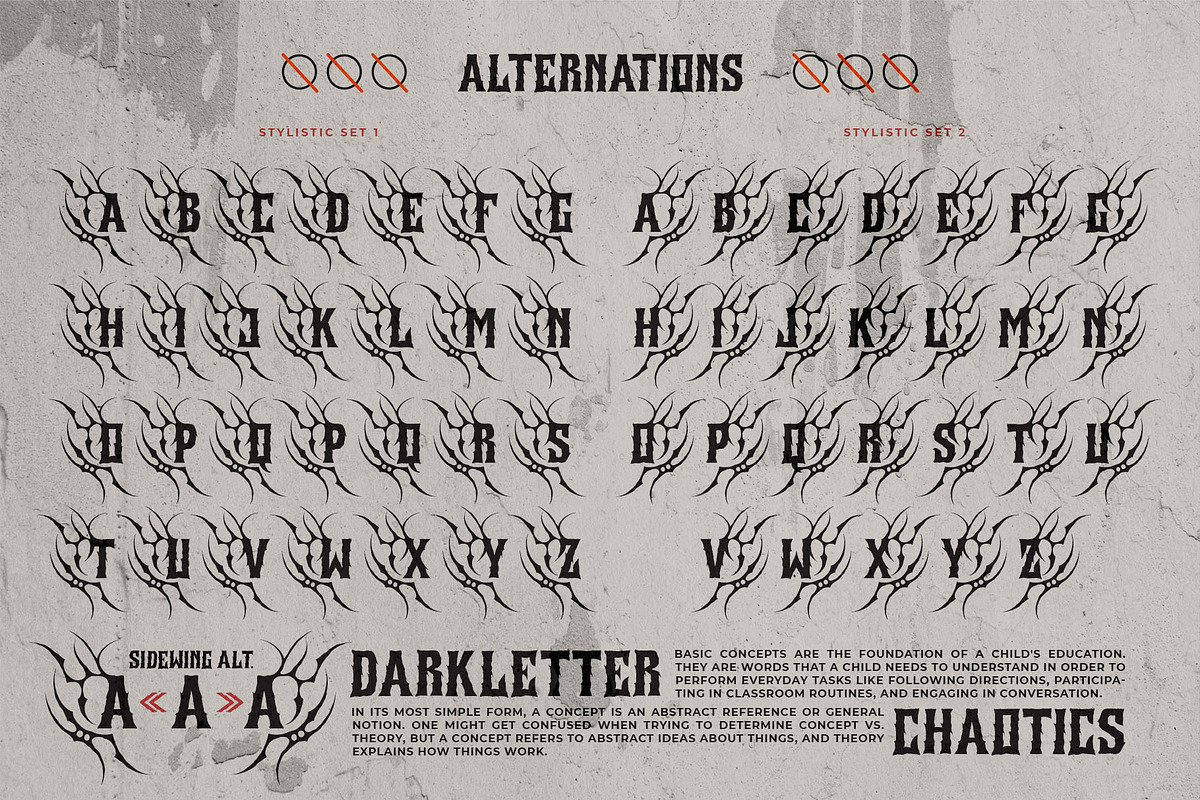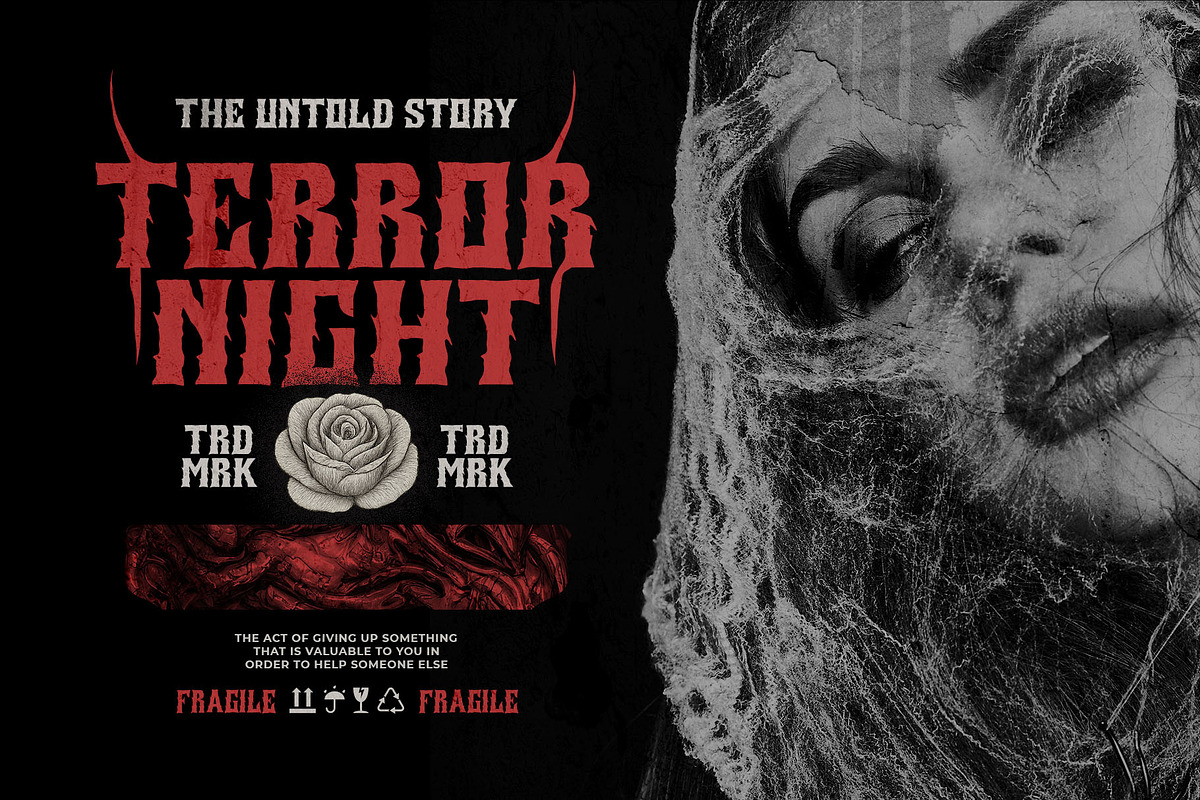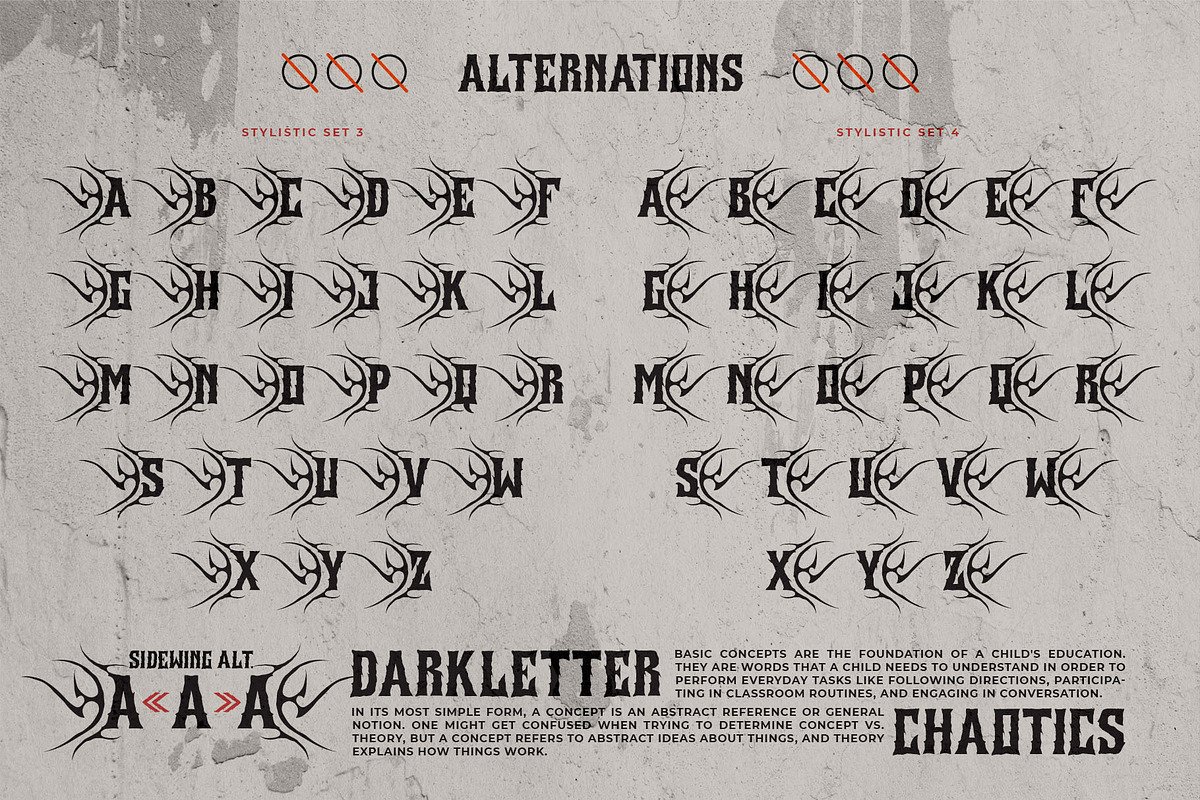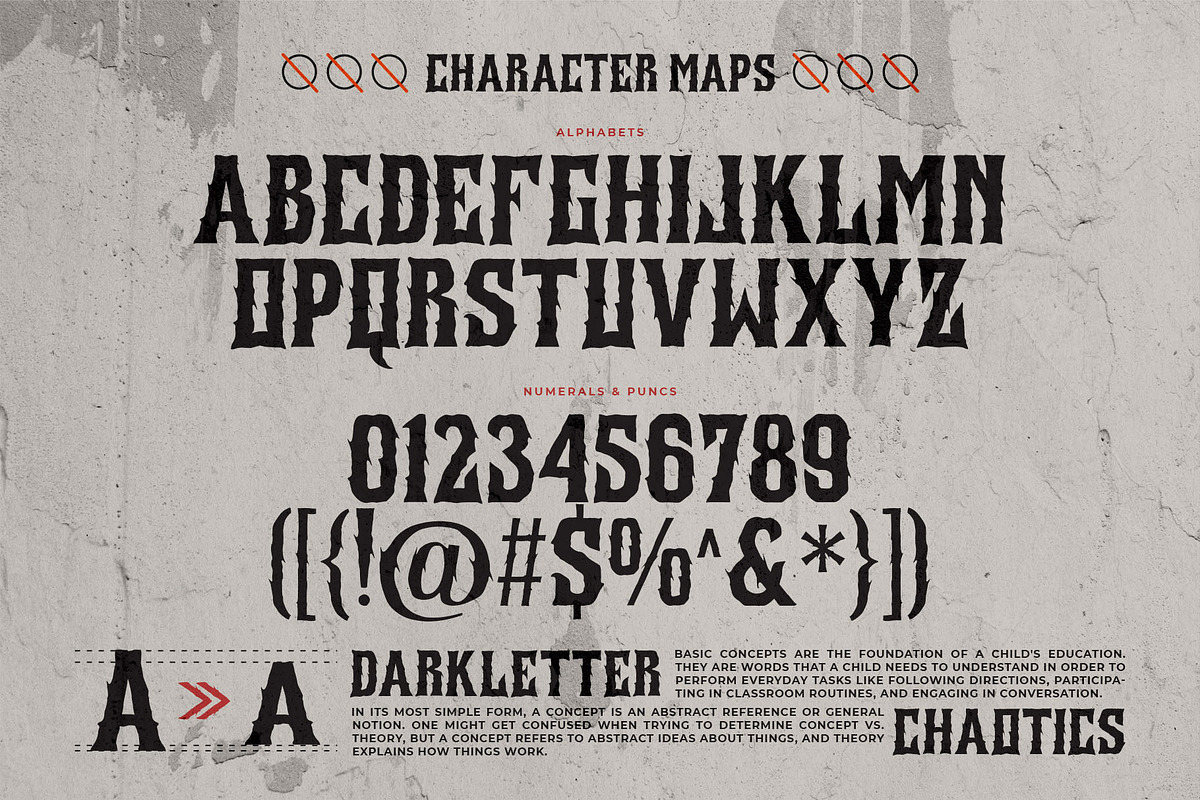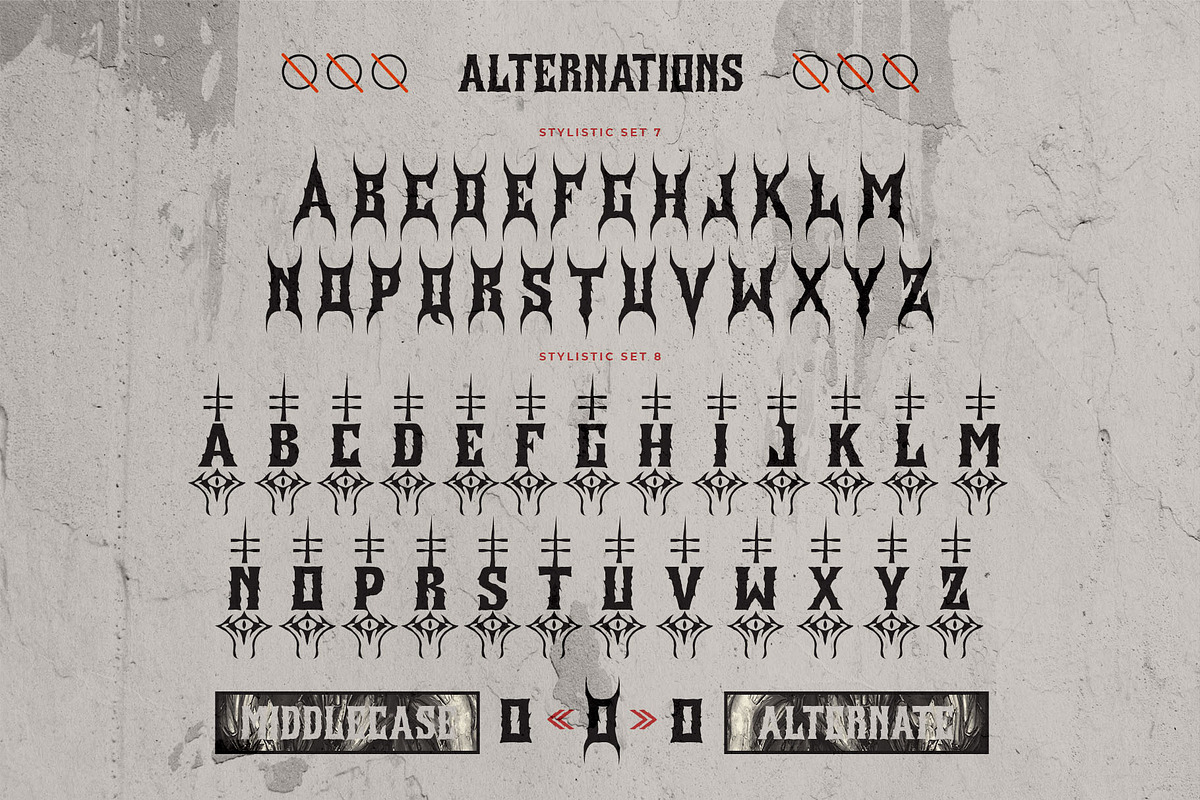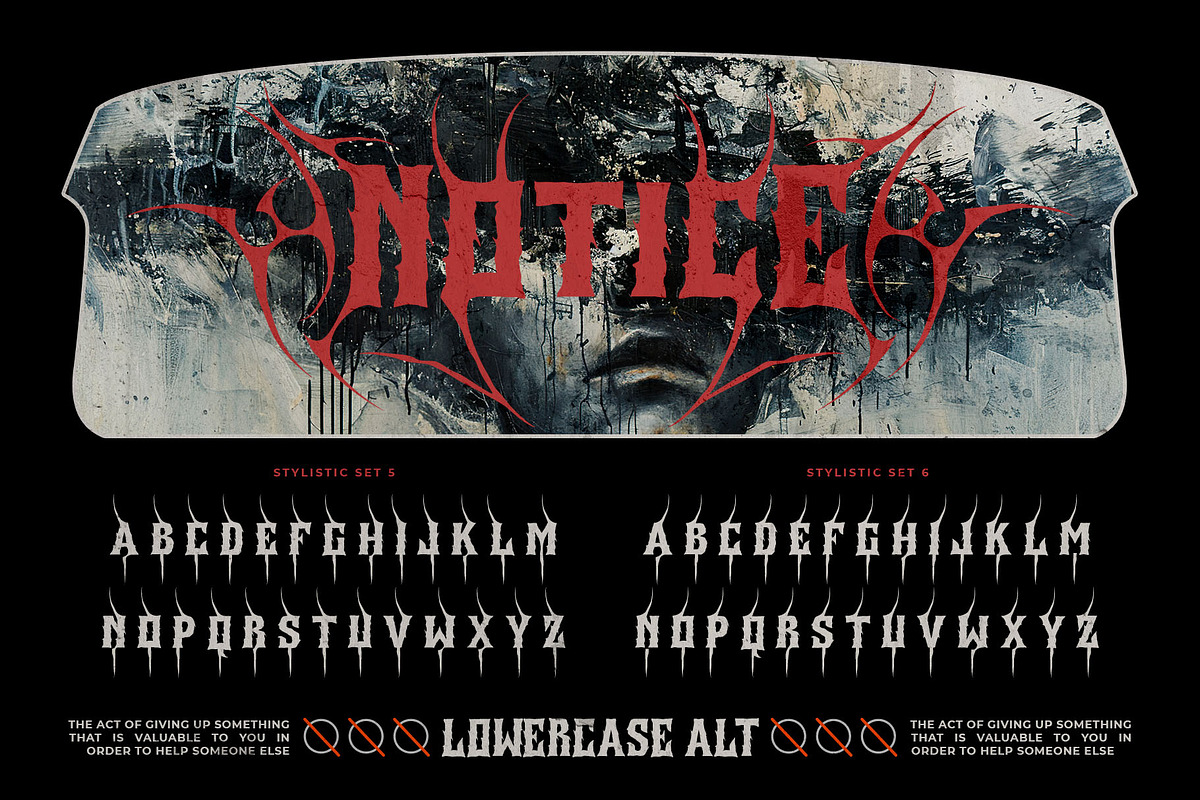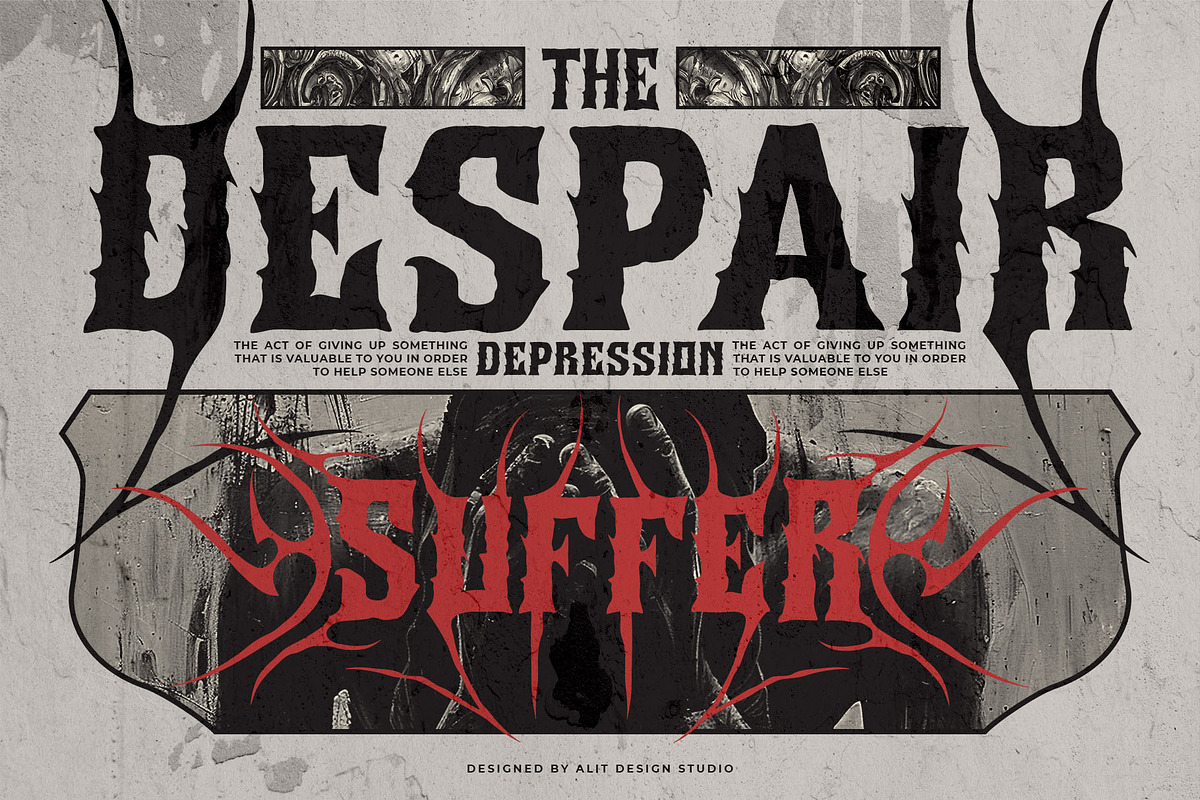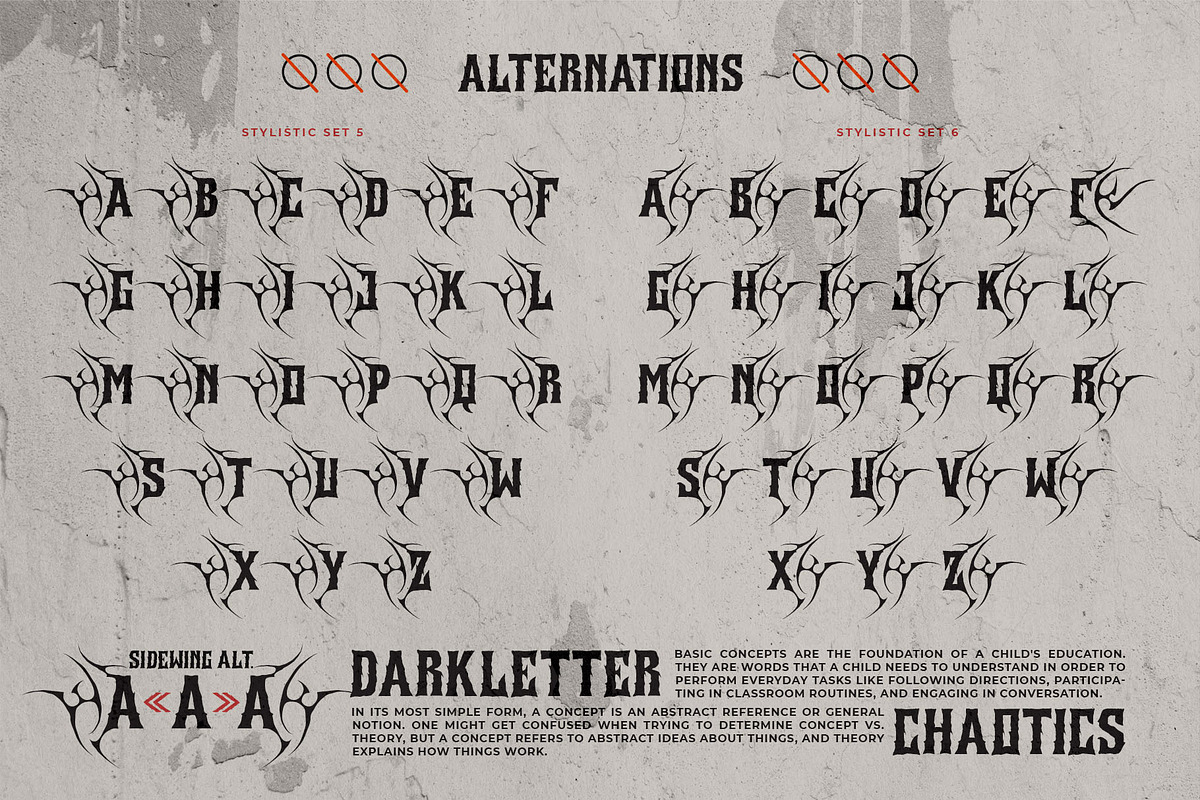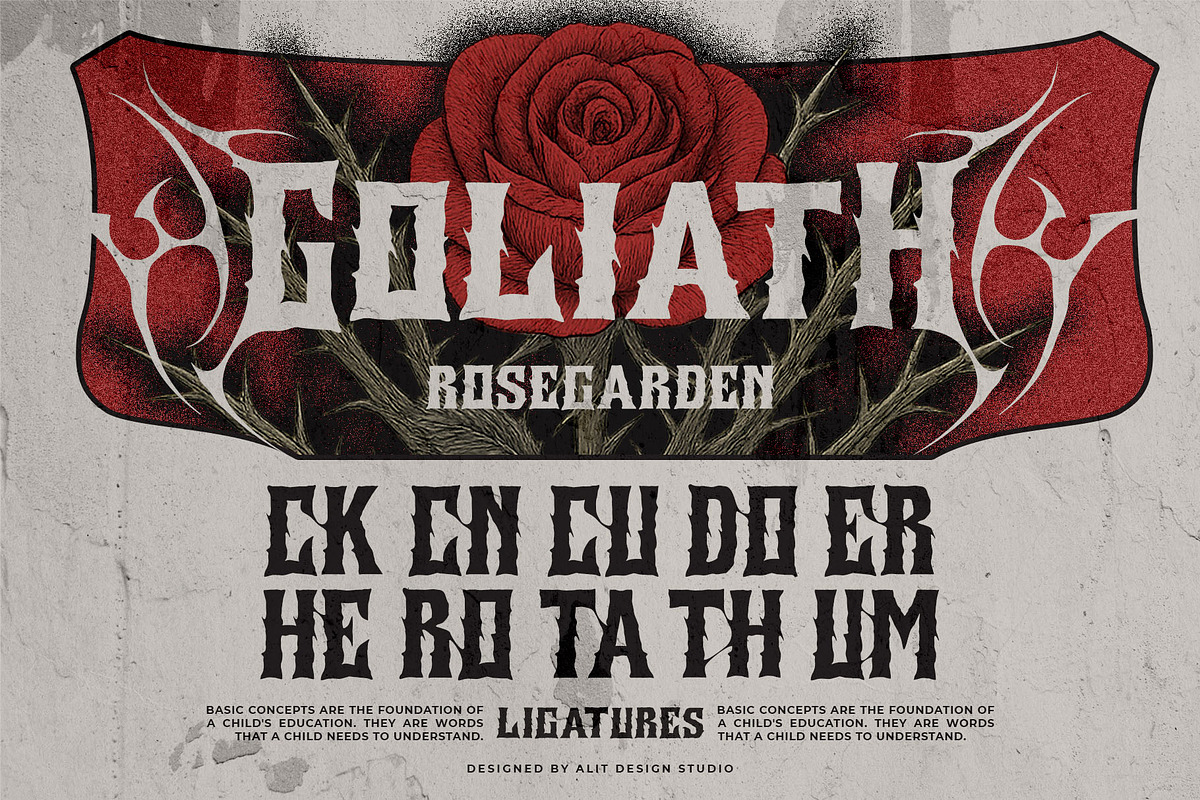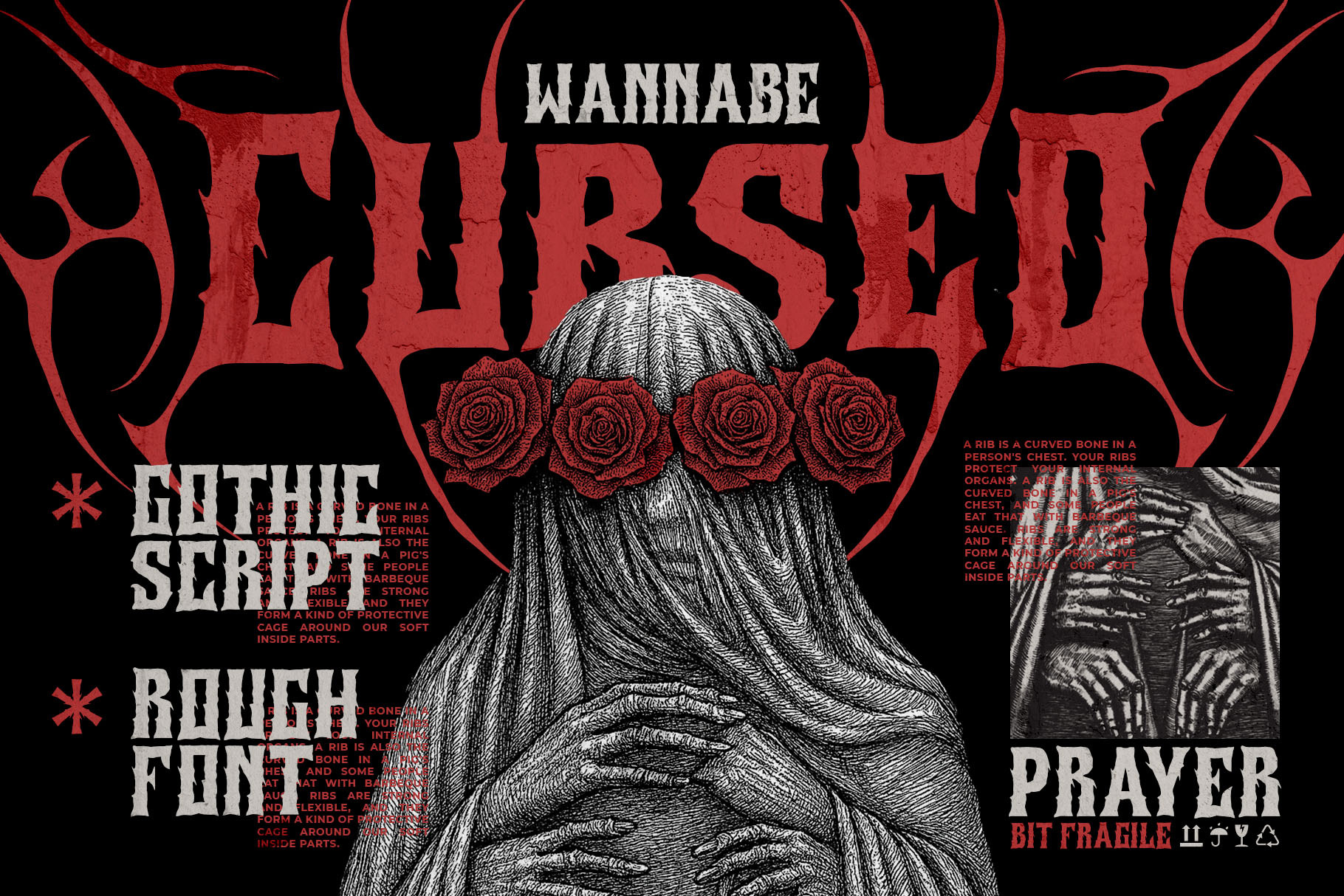
Krondos Typeface
Krondos Typeface – A Font from the Shadows
Summoned from the crypt of forgotten scripts, the Krondos Typeface is not for the faint of heart.
Crawling with thorny tendrils and shaped like roots from the underworld, Krondos is a gothic metal-inspired typeface that fuses horror and harmony. Each letter is carefully crafted to resemble ancient carvings from a cursed forest—twisted, sharp, and alive. Yet beneath its haunting surface lies a surprising clarity, making it perfect for everything from haunted event posters to dark fantasy titles and underground music branding.
With over 842 glyphs lurking in its depths, including eerie alternates and bone-chilling symbols, Krondos gives you the tools to conjure something truly sinister.
☠️ What’s Inside the Tomb:
- Spooky, root-like characters with wicked flair
- Over 842 glyphs (yes, really!) for endless dark creativity
- Great for metal bands, horror zines, cryptic logos & cursed merch
- Legible enough to whisper your message… with menace
- Brought to life by Alit Design Studio
Dare to write in a voice the dead can read.
Krondos Typeface – carve your message into the shadows.